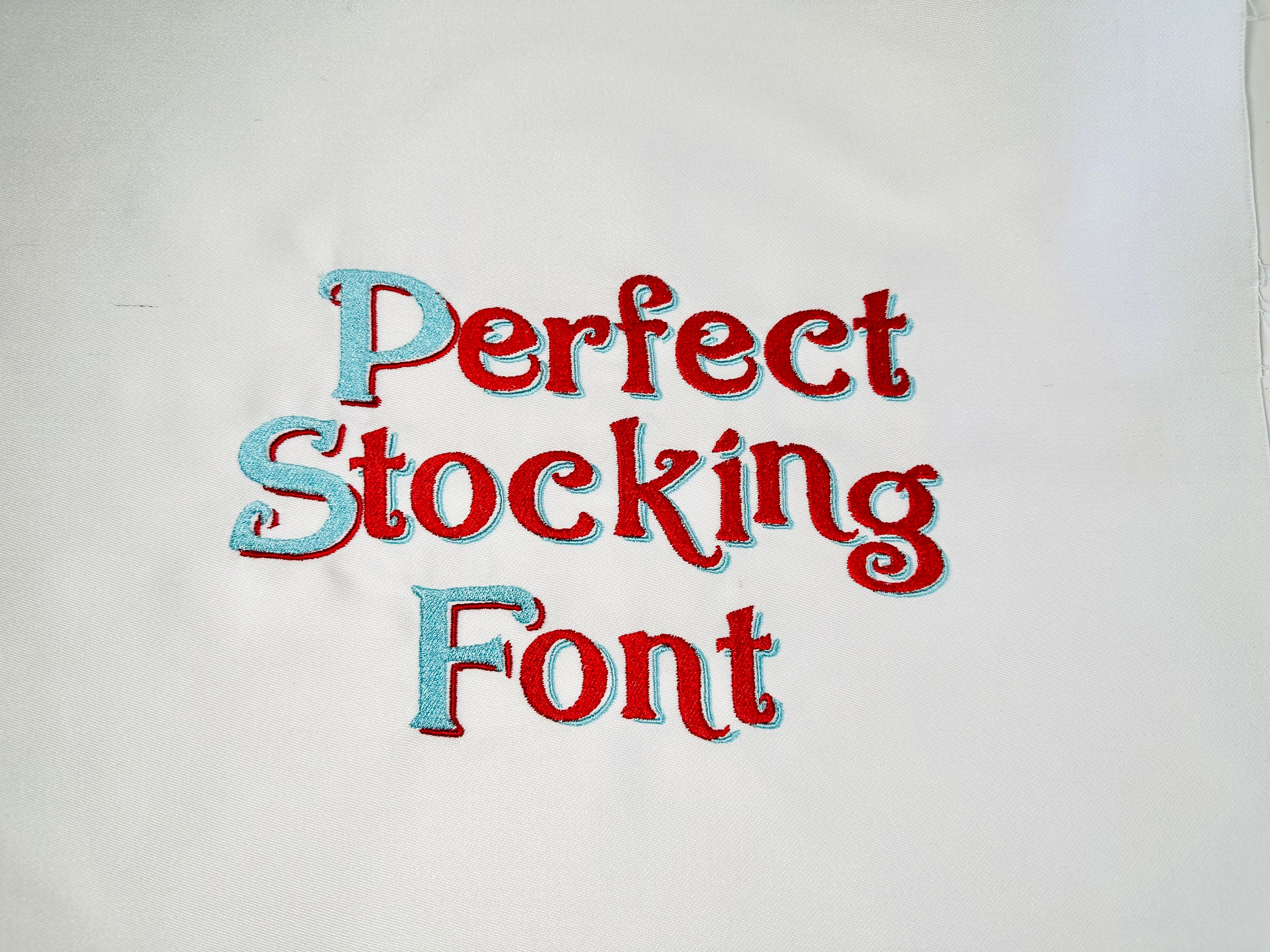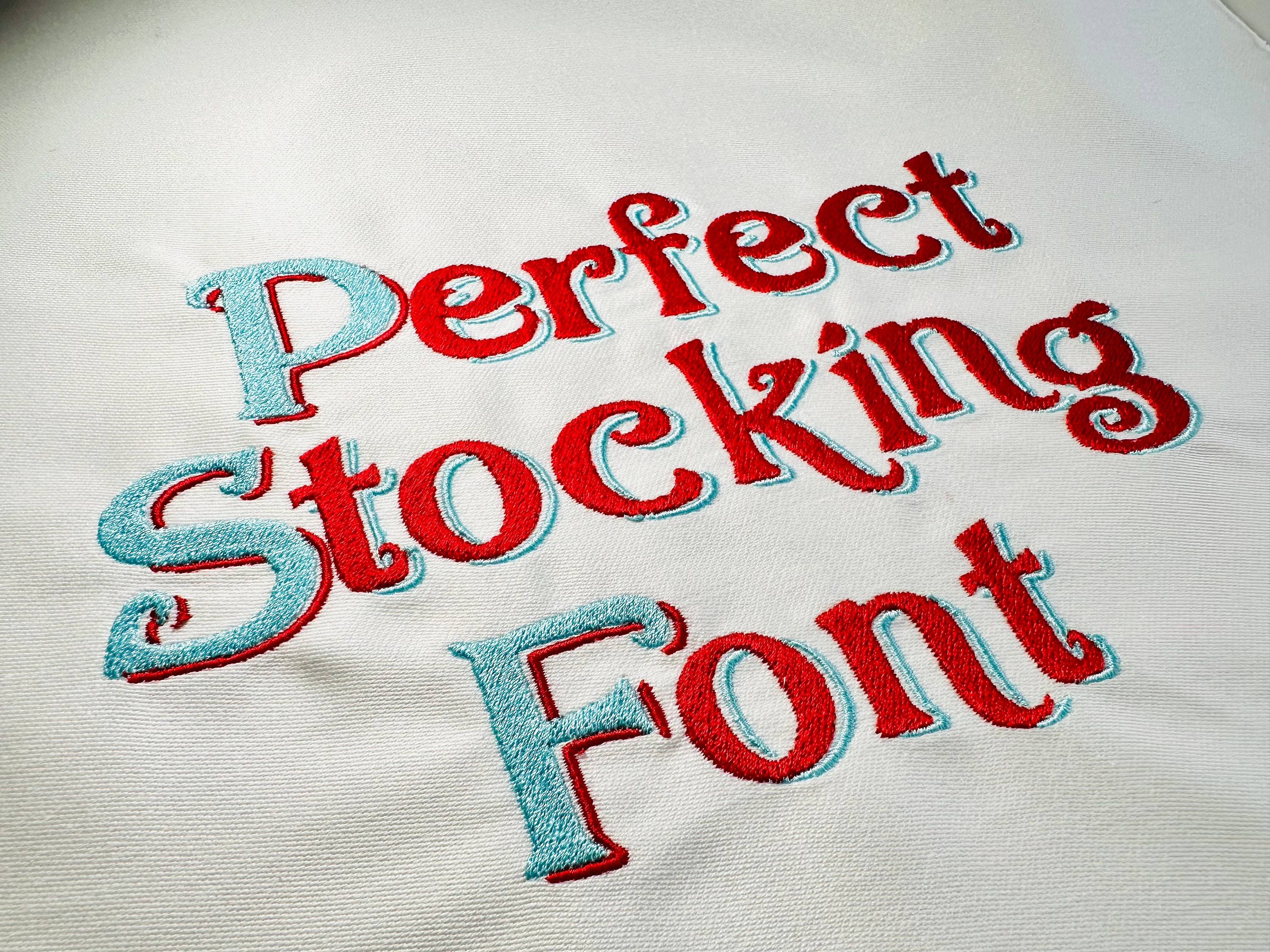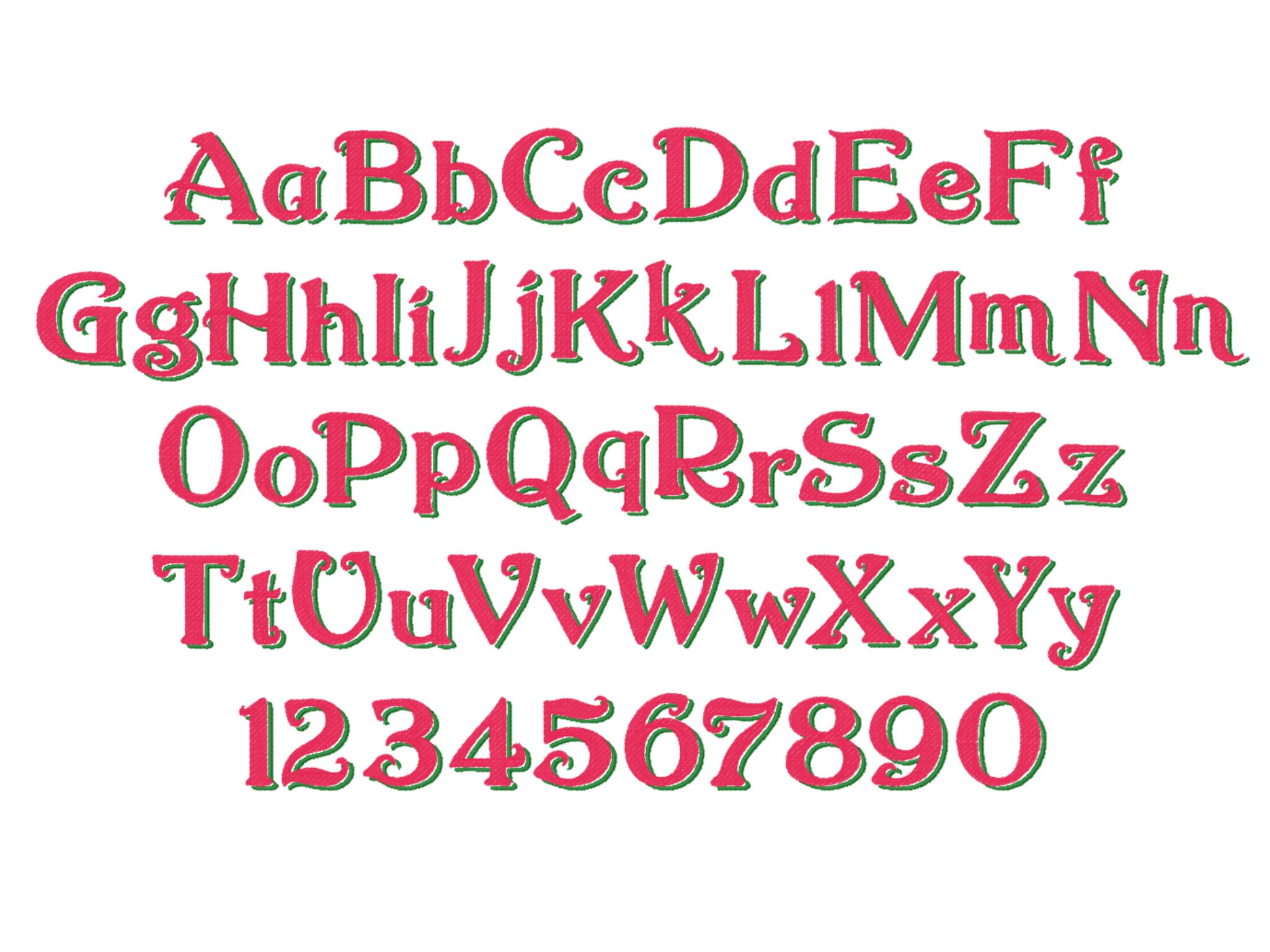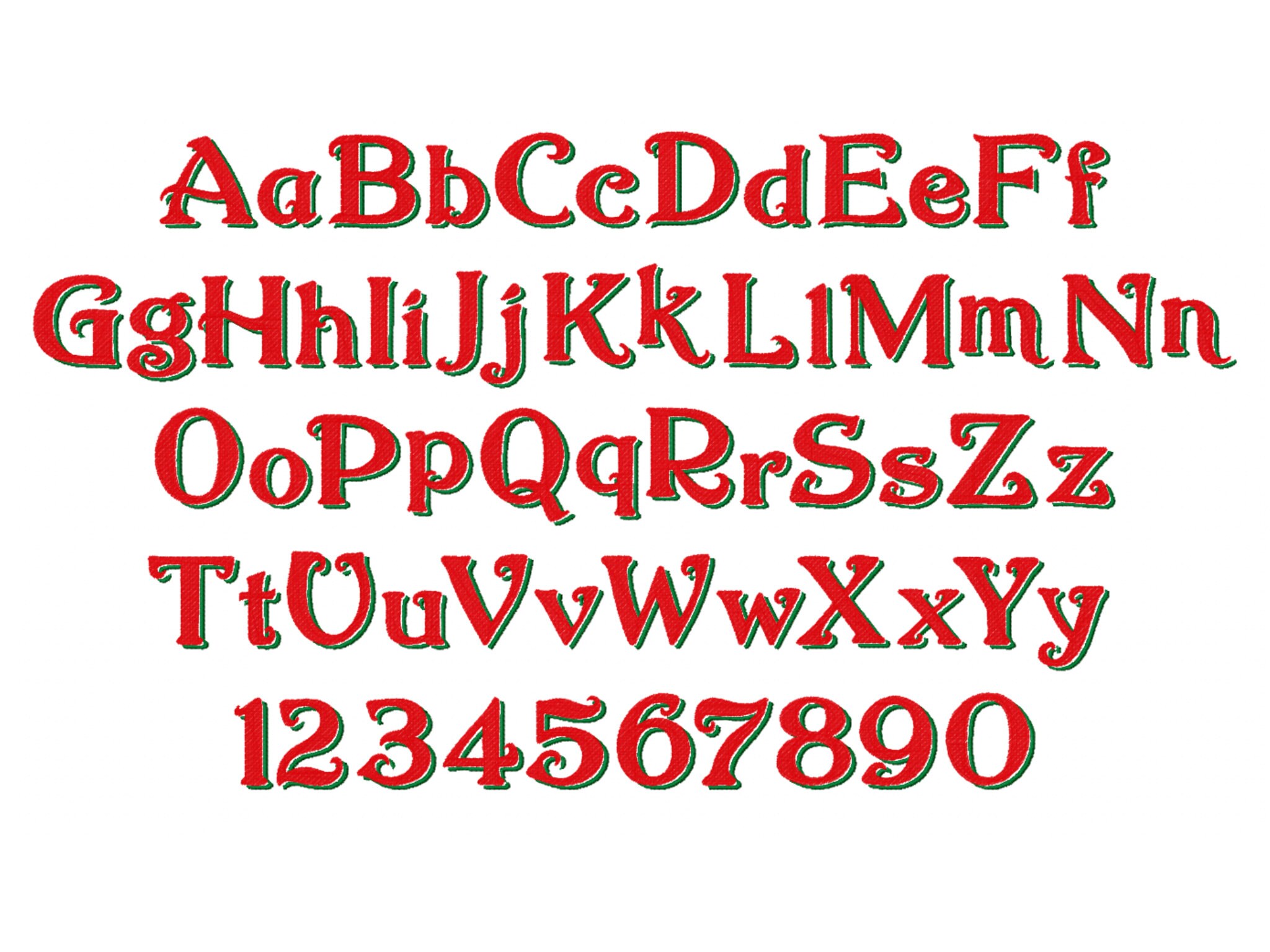
Christmas stocking font machine embroidery designs fairytale magic Shadow Font alphabet mini from 1 up to 2.8 inches monogram BX included
Whole alphabet uppercase and lowercase, and numbers.
Great machine embroidery font. Love it.
Font didn't stitch out nicely for me and the shadow lines didn't fit the letters well. Ended up not using this font for my project.